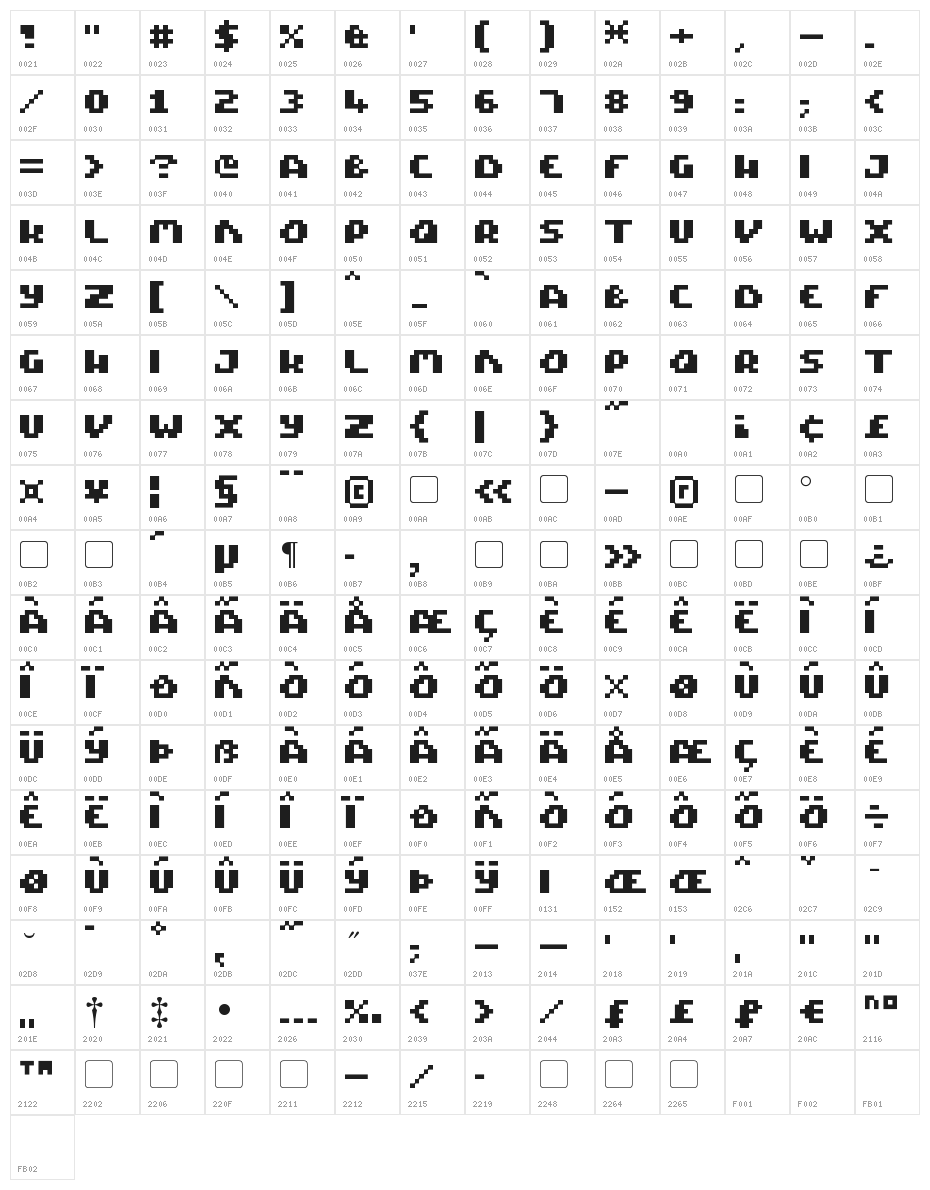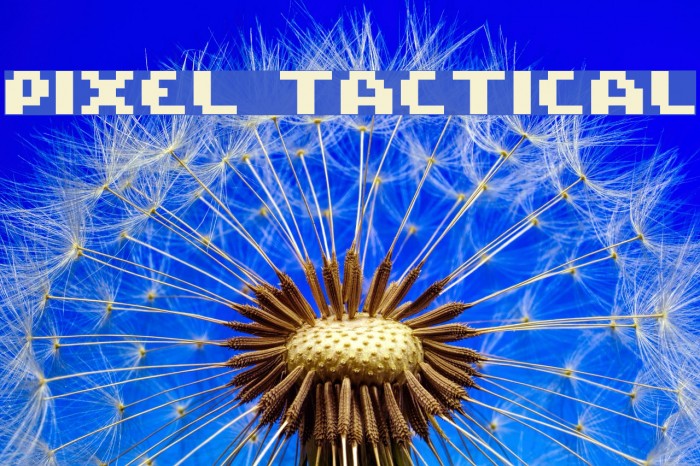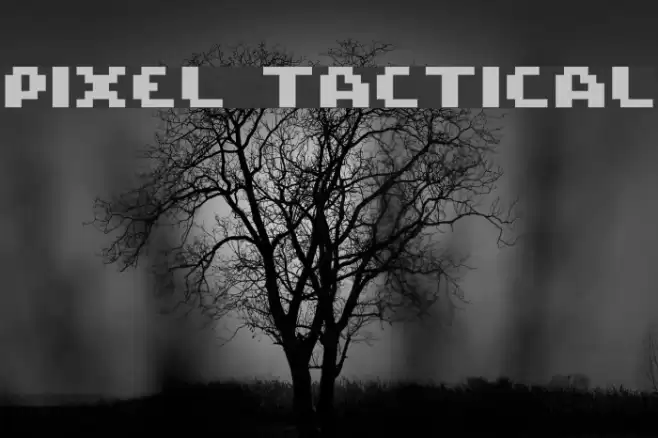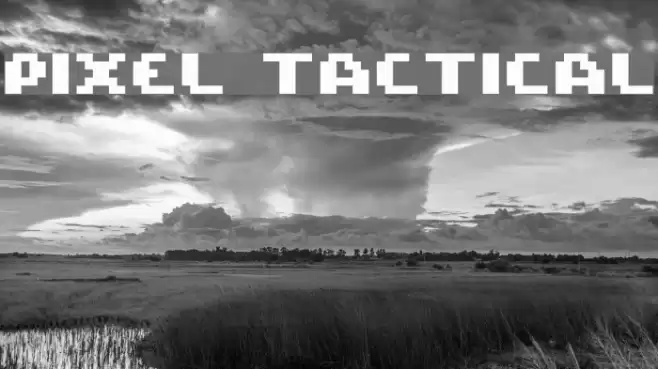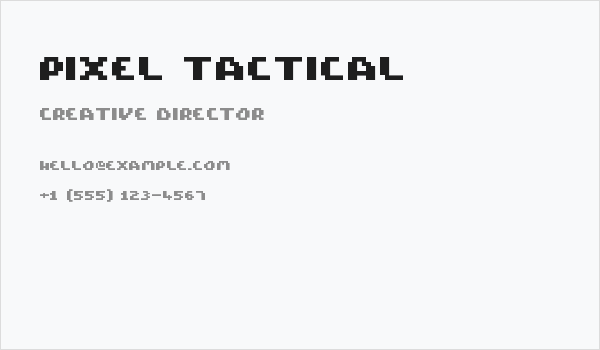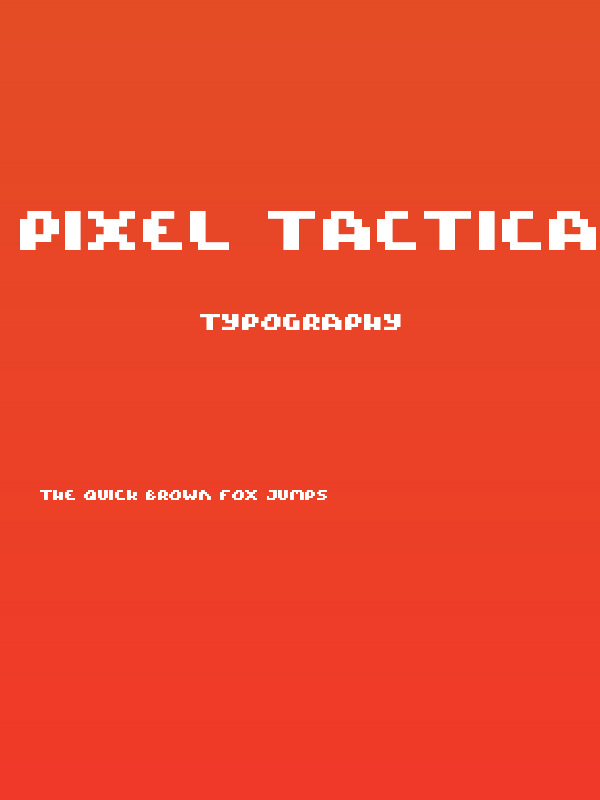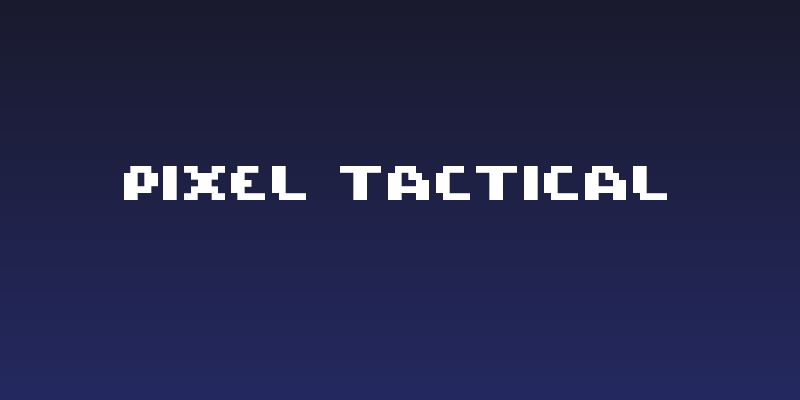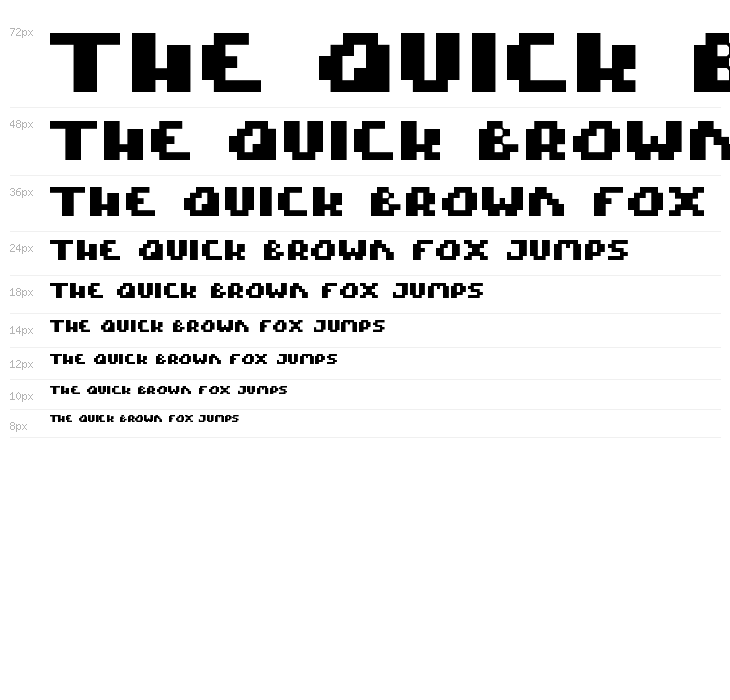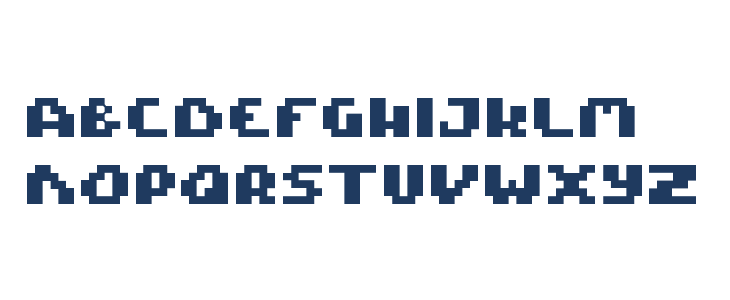
Pixel Tactical Font
Pixel Tactical Description
This font features a bold, pixelated design reminiscent of classic 8-bit video games. Each character is constructed with a blocky, geometric style, giving it a retro, digital appearance. The uppercase and lowercase letters share similar dimensions, enhancing its uniformity. Numbers and special characters maintain the same pixelated aesthetic, ensuring consistency across all glyphs. The font's simplicity and clarity make it ideal for digital displays and projects that require a nostalgic or tech-inspired look.
| Use Case | Headlines, Logos, Digital displays |
| Proposed Projects | Perfect for video game design, digital art, retro-themed posters, and tech-inspired branding. |